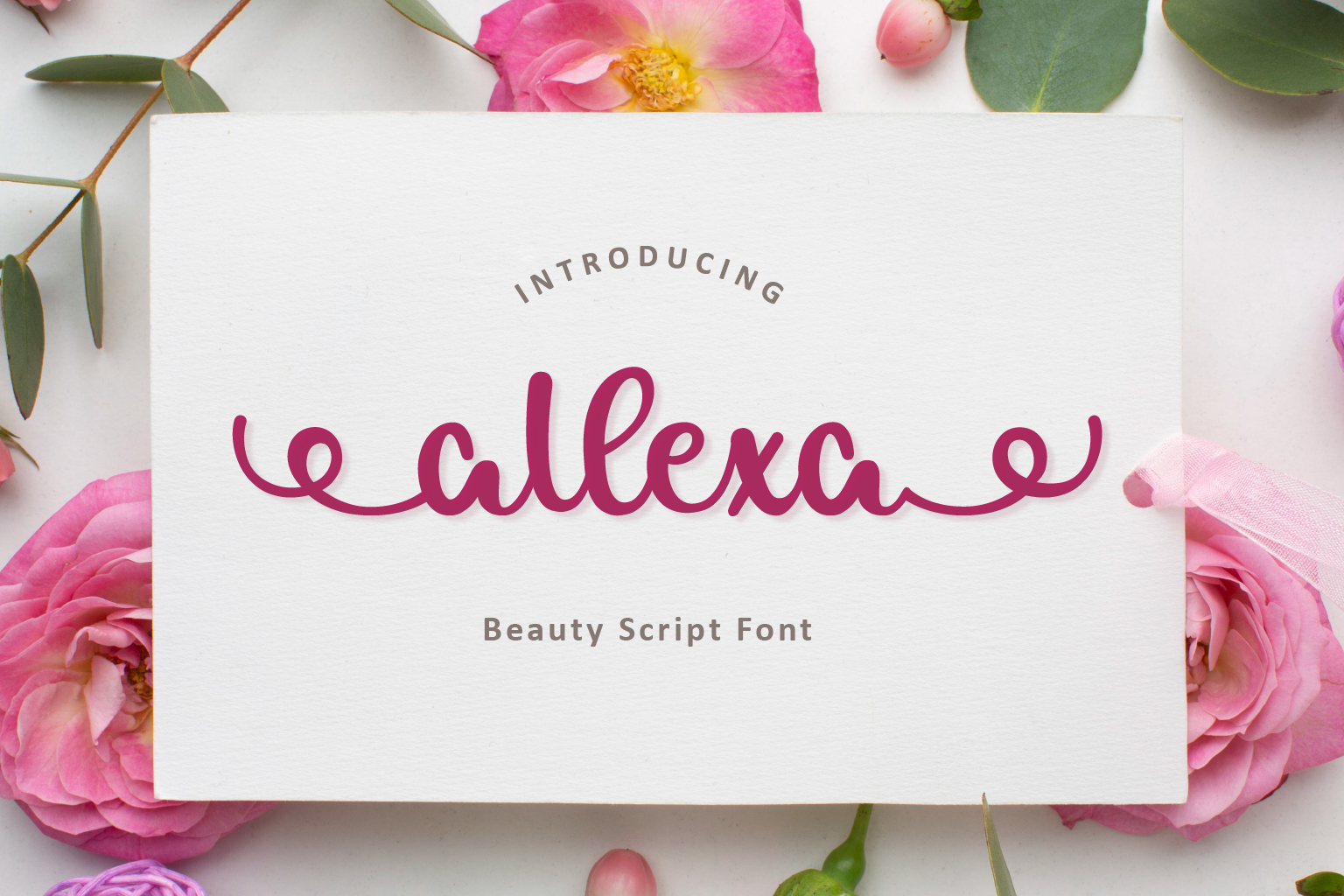
Allexa | Script Font
About the Product This beautiful font was created with extra swash and ligatures. Would be perfect if you use it for a girly design theme, such as wedding invitations, quotes, titles or product mock ups. You’ll need to buy commercial use for extra swash and ligatures. Thanks for checking out my shop, and feel free to get in touch! suntype07@gmail.com
- Standart alphabet (lowercase, uppercase and number)